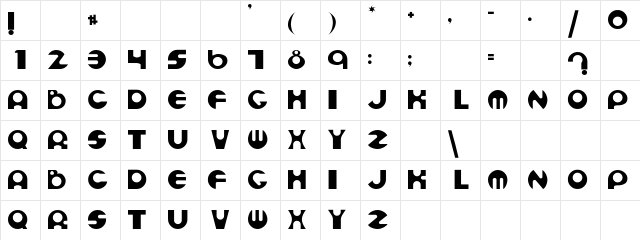
Espheres Regular
Espheres Family
Espheres Regular
Design Context for Espheres
Espheres is a composed and adaptable typeface that performs quietly and consistently across a wide range of design contexts.